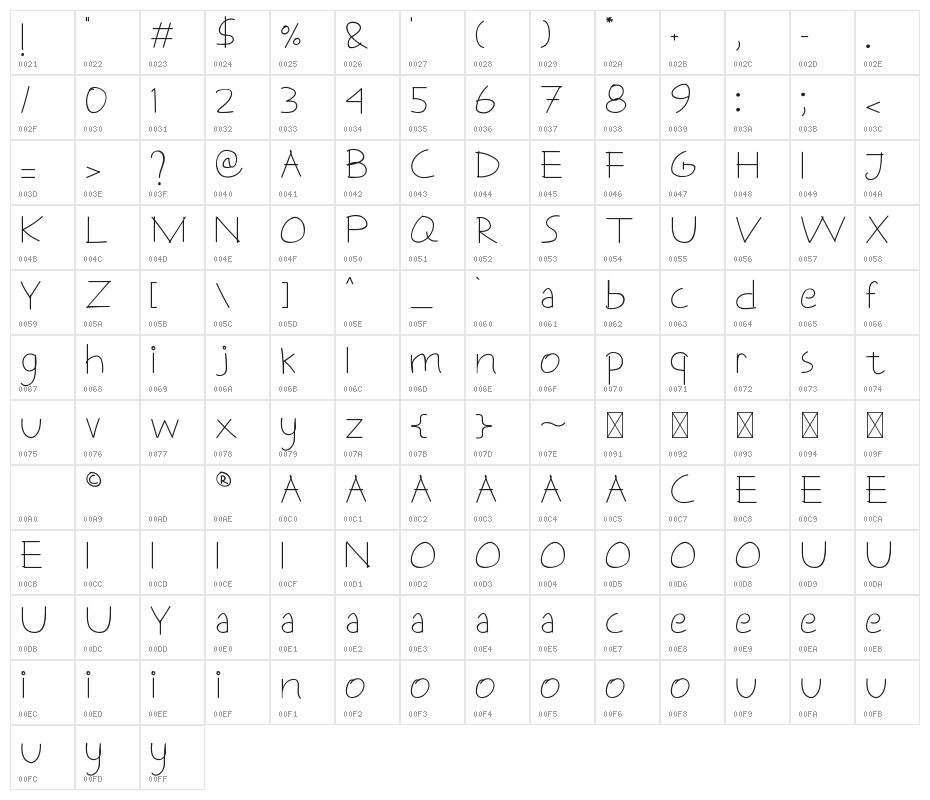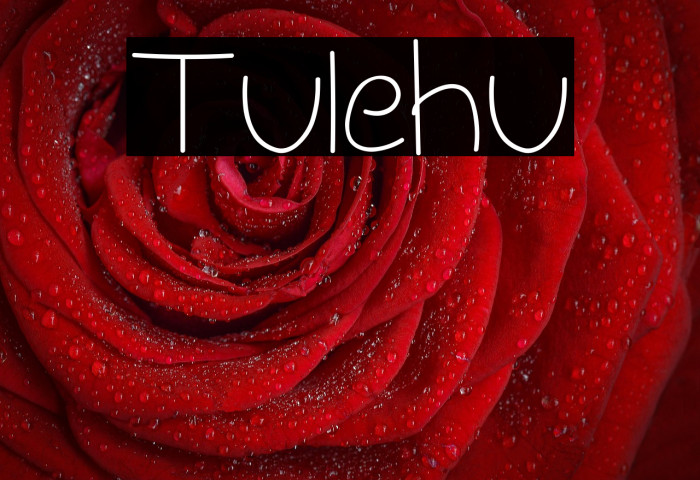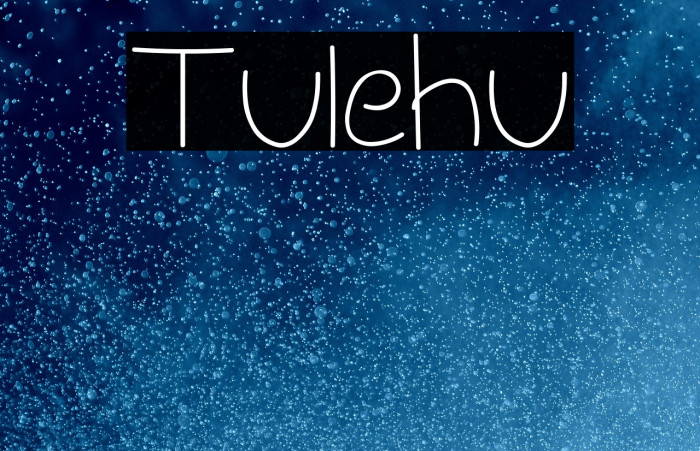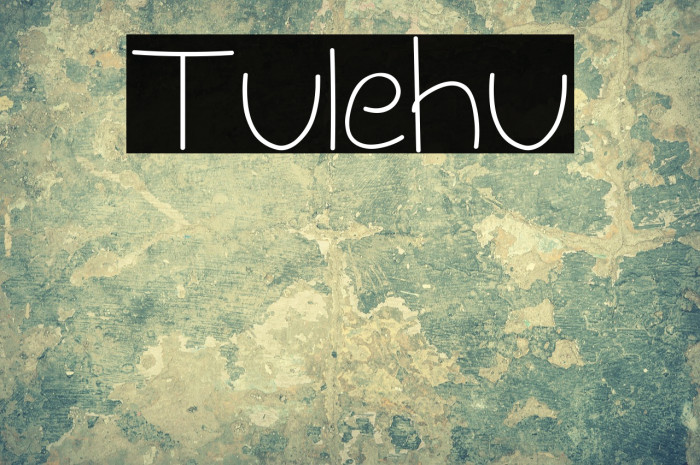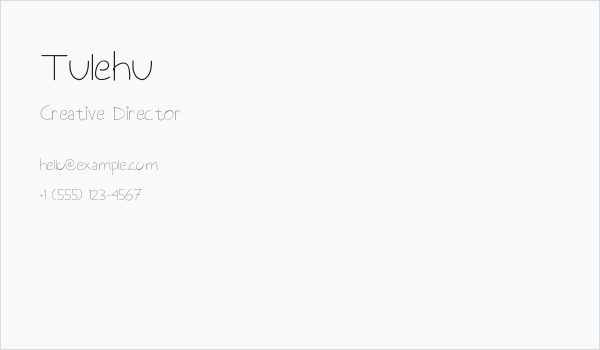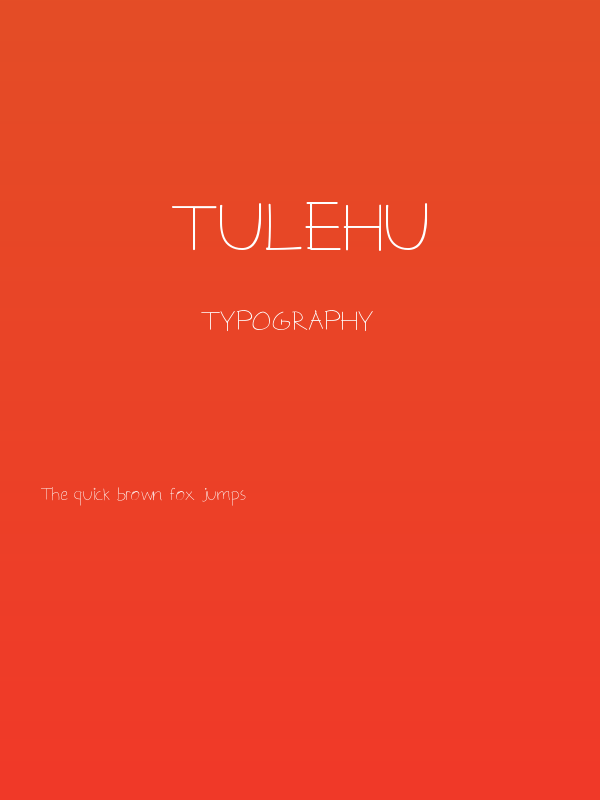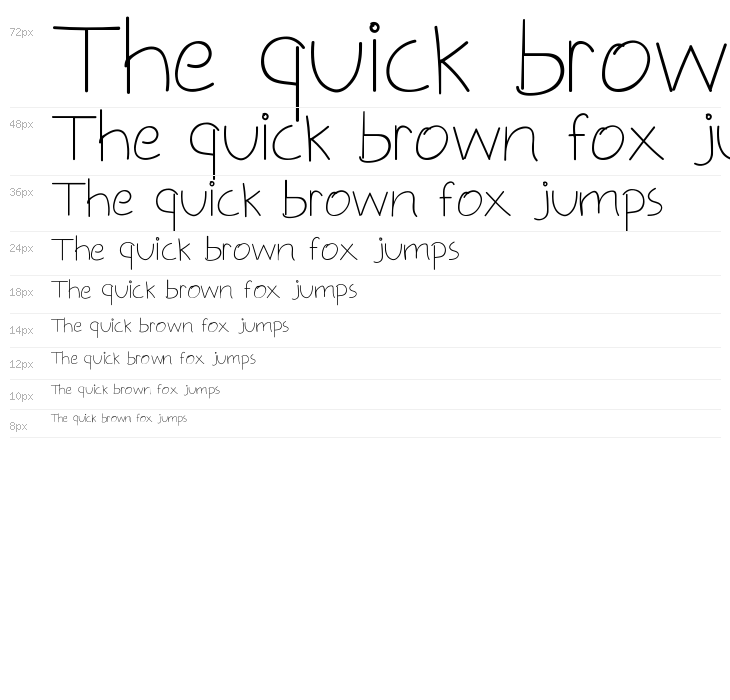
Tulehu Font
Tulehu Description
This font features a playful and whimsical style with a handwritten appearance. The characters are thin and slightly irregular, giving them a casual and approachable feel. The uppercase letters are tall and narrow, while the lowercase letters have a more rounded and open form. The numbers and special characters maintain the same playful aesthetic, with consistent stroke width throughout. The overall design is clean and legible, making it suitable for informal and creative projects.
| Overall Style | Casual and Whimsical |
| Use Case | Headlines, Informal Text, Creative Projects |
| Proposed Projects | Ideal for children's books, greeting cards, casual invitations, and creative branding. |